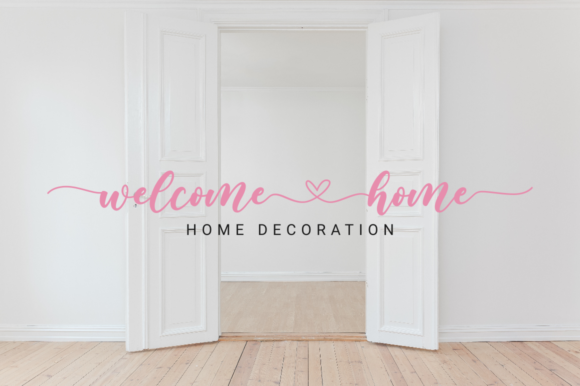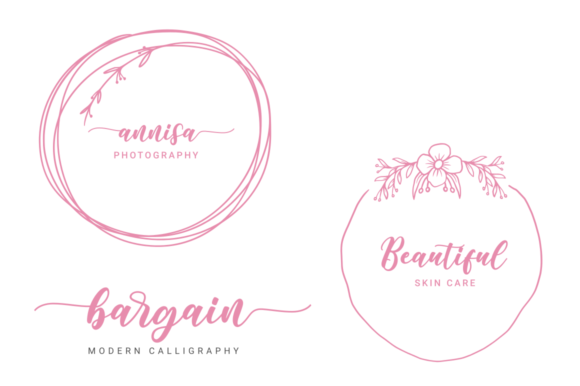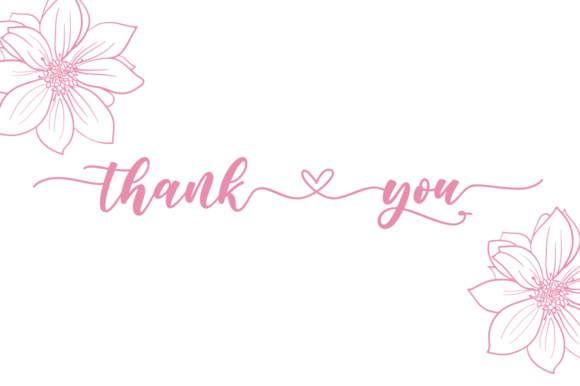
HomeScript FontsBargain Font Script Fonts Bargain Font FacebookXPinterestWhatsApp Bargain Font Poster 2 Bargain Font Poster 3 Bargain Font Poster 4 Bargain Font Poster 5 About Bargain Font Bargain is a stunning calligraphy script with lovely lines and swashes. Fall in love with its effortless charm. DOWNLOAD NOW People also explored Rufino Font Magdalena Font Anissa Sabrina Font Catcher Font Mandala Handmade Font Morphosa Monogram Font The Key Font Winter Harmony Font Chromosome 476 0 TagsBargain Font Previous articleFondacy Carved FontNext articleMoody Star Font LEAVE A REPLY Cancel reply Comment: Please enter your comment! Name:* Please enter your name here Email:* You have entered an incorrect email address! Please enter your email address here Website: Save my name, email, and website in this browser for the next time I comment. Personal Use Free Winner Personal Use Free Read more about this font Open Store Personal Use Free Read more about this font Royal Bengal Tiger Personal Use Free Read more about this font Rionaldo Angelo Personal Use Free Read more about this font BLOG Fonts That Capture the Spirit of New York City New York City is more than just a place—it’s an experience, a rhythm, a visual language... Top 10 Handwritten Fonts That Elevate Your Designs Best Fonts for YouTube Videos: Make Your Thumbnails Stand Out Free vs Paid Fonts: Why Investing in Premium Fonts Is Worth It